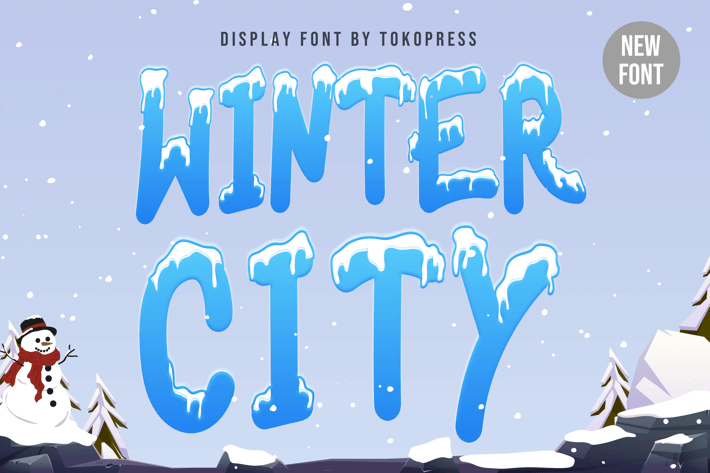
Winter City - Kids font
Winter City - Winter Kids Font
A joyful winter display font with textured icy edges, bold shapes, and a lively, childlike rhythm.
Winter City blends bold handwritten energy with frosty decorative textures, making it ideal for designs that need a fun, festive, and friendly vibe. Its slightly uneven baseline and chunky proportions evoke a sense of play and creativity—perfect for seasonal branding, children's projects, and cozy product packaging.
Whether you're designing a winter-themed kids book, a holiday craft label, or an educational game, Winter City delivers instant seasonal charm. Its expressive and approachable look makes it perfect for engaging young audiences, while the snowy detailing adds a layer of whimsy that’s visually memorable in digital and print use. Add magic to any headline or product with its built-in winter storytelling energy.
Key Features
Fun & Frosty
- Icy hand-drawn textures with a cozy winter feel
- Rounded, irregular shapes for a handmade touch
Kid-Friendly & Creative
- Bouncy letterforms that encourage playfulness
- Great for classroom posters, storybook titles, and learning materials
* Versatile & Eye-Catching
- Stands out in holiday branding, food packaging, greeting cards, and music covers
- Pairs well with illustrations and colorful design palettes